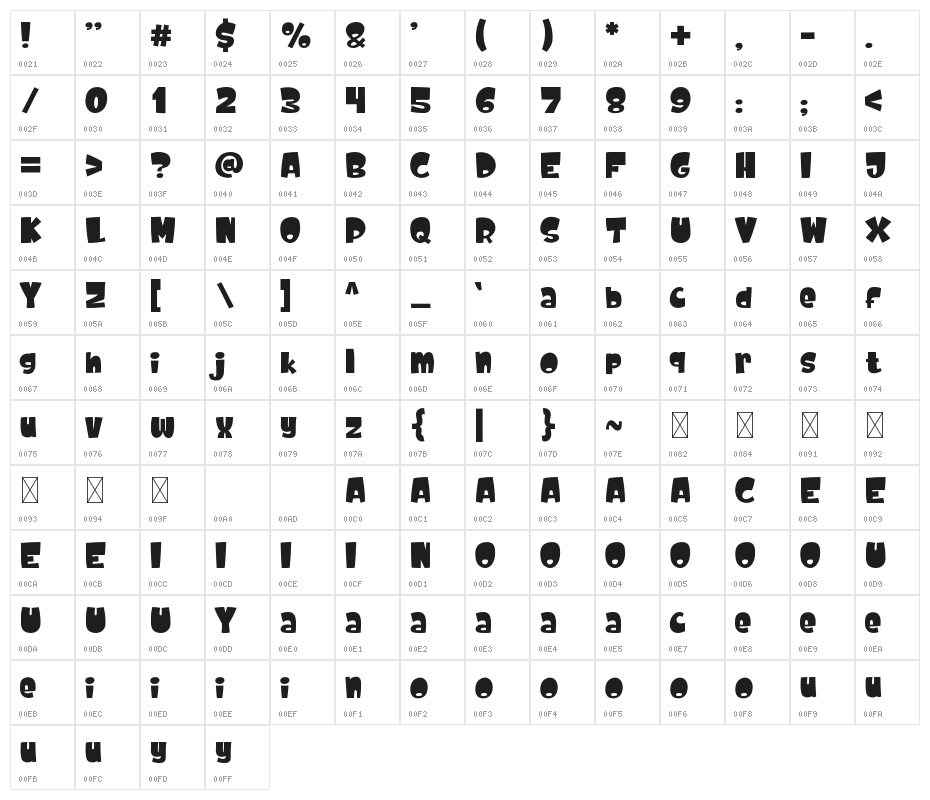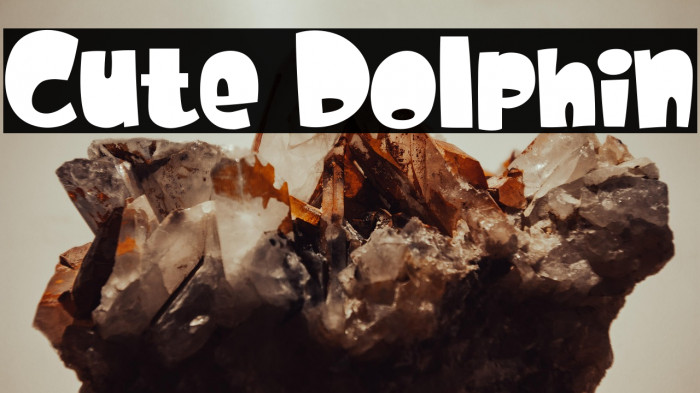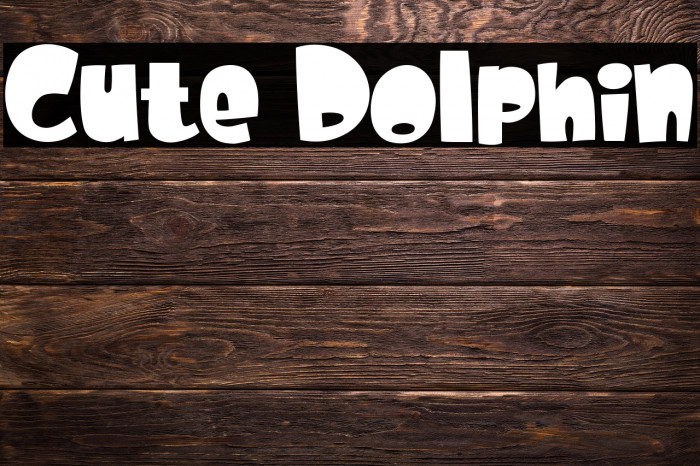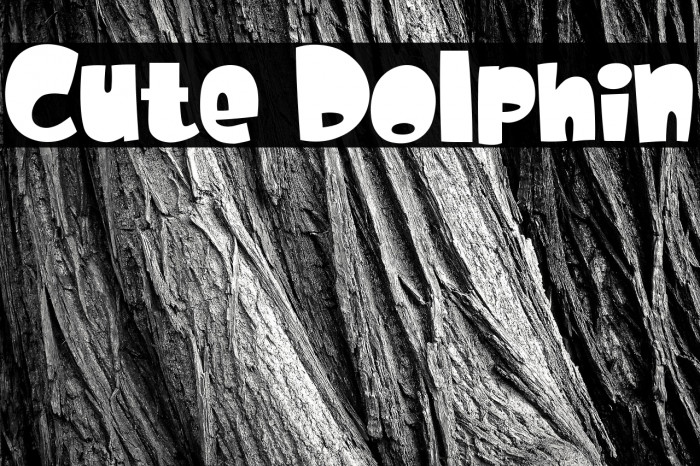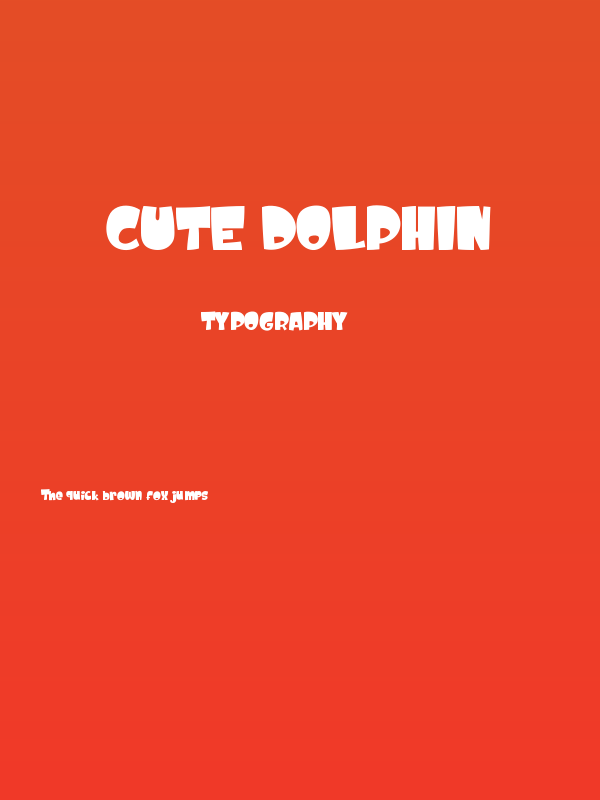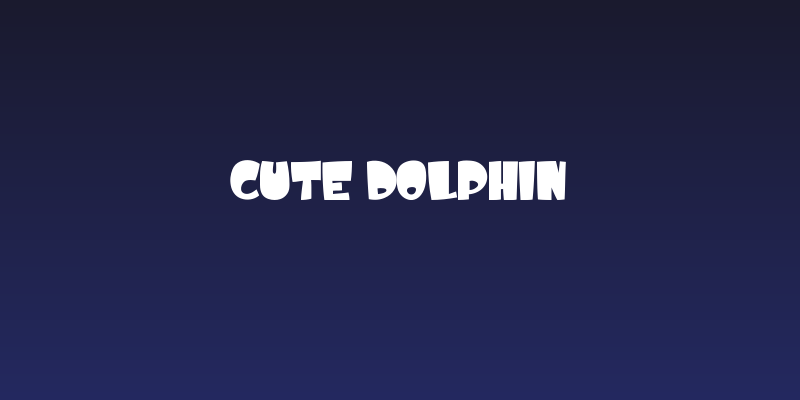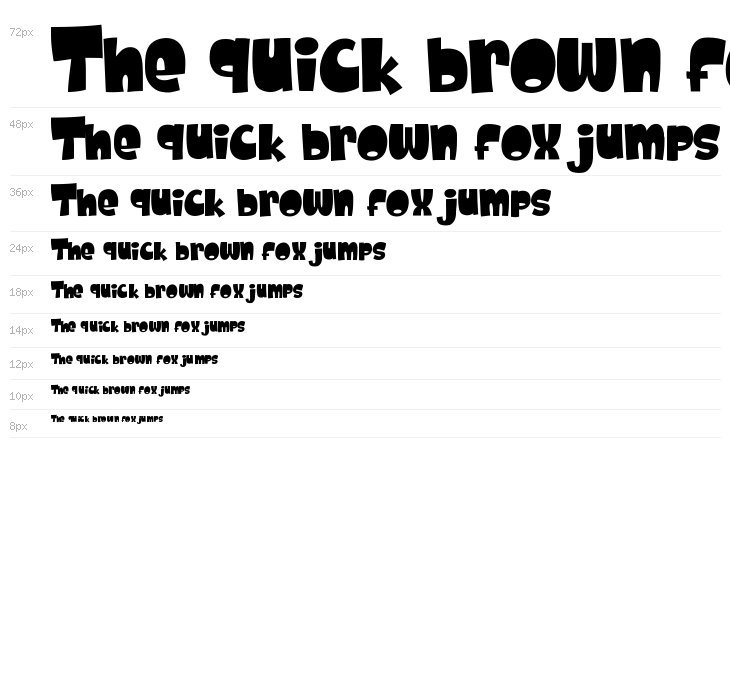
Cute Dolphin Font
Cute Dolphin Description
This playful and bold font features thick, rounded characters with a whimsical, cartoon-like appearance. The letters are slightly irregular, adding a sense of fun and spontaneity. The uppercase and lowercase letters maintain a consistent style, with exaggerated curves and a strong presence. The numbers and special characters follow the same design principles, ensuring a cohesive look across all text elements. This font is perfect for projects that require a lively and engaging typeface, such as children's books, playful branding, or eye-catching posters.
| Proposed Projects | Ideal for children's books, playful branding, and eye-catching posters. |